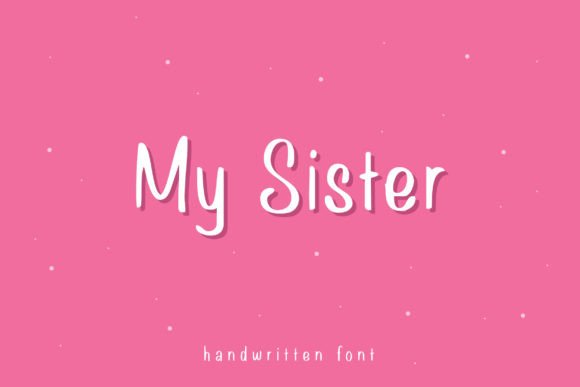
My Sister Font
Welcome to the enchanting world of My Sister, a breathtaking script font that exudes charm and playfulness. Handcrafted with love by the esteemed Mightyfire, My Sister is not just a font; it's a captivating story waiting to be told through your designs.
Indulge in the whimsical curves and enchanting strokes that define My Sister. Each letter dances across the page like a ballerina, adding a touch of magic to every word. Whether you're a seasoned designer or a creative spirit just starting your journey, My Sister will captivate your imagination and inspire you to create designs that leave a lasting impression.
Dive into the world of fashion design with My Sister as your trusted companion. Its delicate lines and graceful flourishes will elevate your garments, accessories, and branding materials to new heights of sophistication. Imagine your designs adorned with My Sister's enchanting presence, turning heads and sparking conversations wherever they go.
Beyond fashion, My Sister's versatility knows no bounds. From heartwarming invitations to whimsical artwork, this font will add a touch of magic to any project. Whether you're a blogger, a crafter, or simply someone who loves to express themselves through words and images, My Sister is the perfect font to bring your vision to life.
With My Sister in your creative toolbox, the possibilities are endless. Its playful spirit will ignite your imagination, while its timeless elegance will ensure that your designs stand the test of time. Embrace the magic of My Sister today and embark on a creative journey that will leave an unforgettable mark on the world.